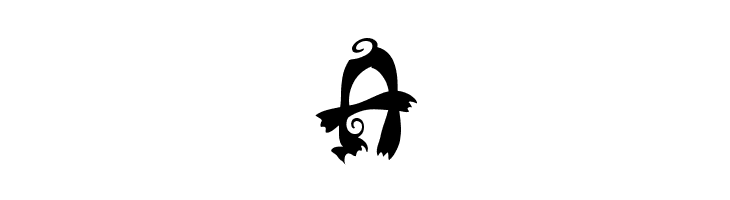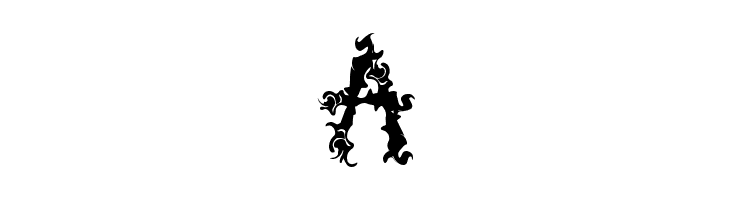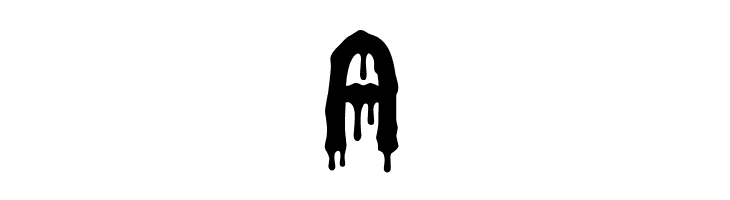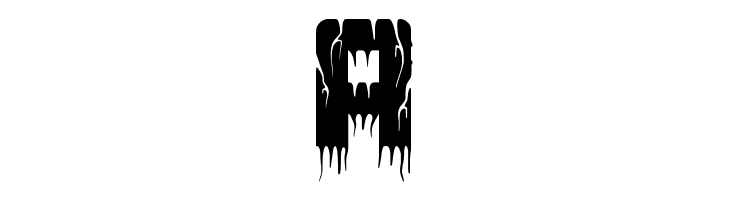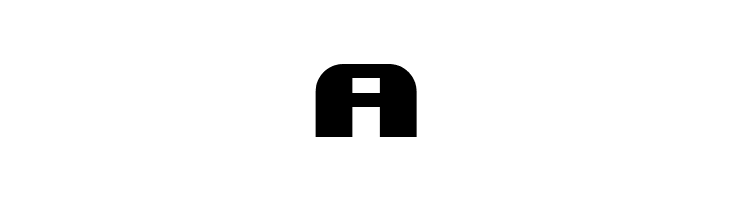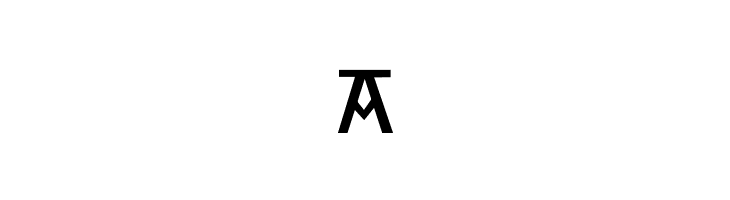
A bold, geometric font with a 3D effect and angular design.
A bold, decorative font with a vintage shadow effect.
A playful, handwritten font with a modern, energetic style.
A playful, bold font with rounded edges and a hand-drawn feel.
A bold, rounded, and playful font with a hand-drawn style.
A bold, playful handwritten font with rounded, slightly irregular letterforms.
A playful and whimsical font with exaggerated curves and a modern flair.
A spooky, web-themed decorative font perfect for Halloween designs.
A playful, hand-drawn font with bold, irregular strokes and a dynamic style.
A playful, hand-drawn style font with bold, irregular strokes.
A bold, decorative font with intricate spider web patterns inside each character.
A bold, angular font with a gothic, medieval flair.
A playful, rounded font with a bold and modern style.
A lively, handwritten script font with bold, expressive characters.
A bold, geometric font with a modern, industrial feel.
A bold, decorative font with sharp, angular edges and a medieval flair.
A cursive, handwritten font with elegant curves and artistic flair.
A bold, three-dimensional font with a strong, block-like appearance.
A dynamic, cursive script font with medium contrast and elegant flow.
A dynamic and fluid script font with elegant, flowing letterforms.
A bold, decorative font with a split-filled design and thick outlines.
A bold, three-dimensional font with a split design and geometric structure.
A spooky, dripping font perfect for Halloween themes.
A playful, hand-drawn font with a spooky, whimsical style.
A fiery, flame-embellished font perfect for spooky, dramatic designs.
A spooky, jagged font ideal for Halloween themes.
A spooky, ghostly font with jagged, irregular edges and a haunted vibe.
A horror-themed font with dripping, jagged letters for a spooky effect.
A spooky, Halloween-themed decorative font with playful, eerie elements.
A playful, spooky font with jagged edges and bold, irregular styling.
( Fonts by Phantom Studio - Phantom Creative Studio - Personal-use only. For commercial use please contact owner. )
A playful, spooky font with a hand-drawn, Halloween-inspired design.
A bold, brush-style font with dynamic and energetic strokes.
A bold, grungy font with a spooky, distressed texture.
A playful, hand-drawn font with a spooky, whimsical style.
A spooky, dripping font perfect for Halloween-themed designs.